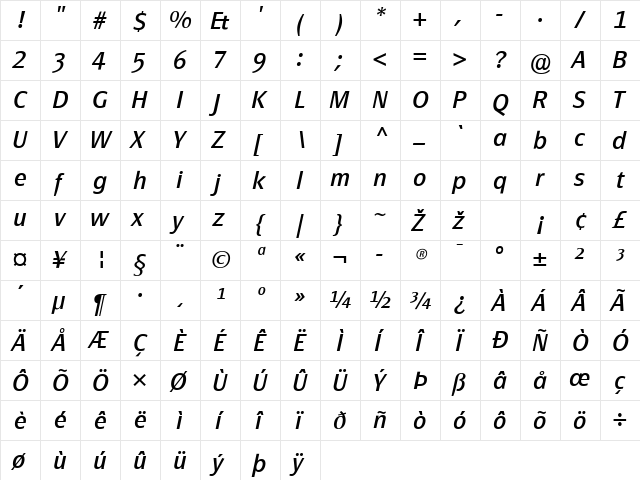
PageSansTF-RegularItalic Regular
| Designer | Albert Boton |
Design Context for PageSansTF-RegularItalic Typeface
PageSansTF-RegularItalic is a composed and adaptable typeface that performs quietly and consistently across a wide range of design contexts. Its italic angle brings a sense of urgency and motion to the letterforms.